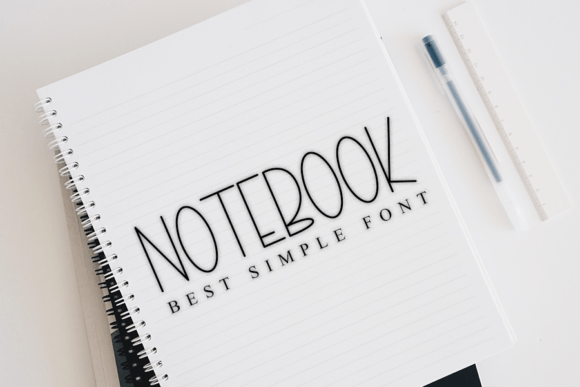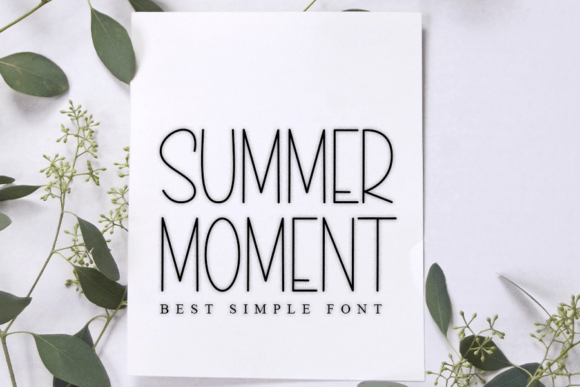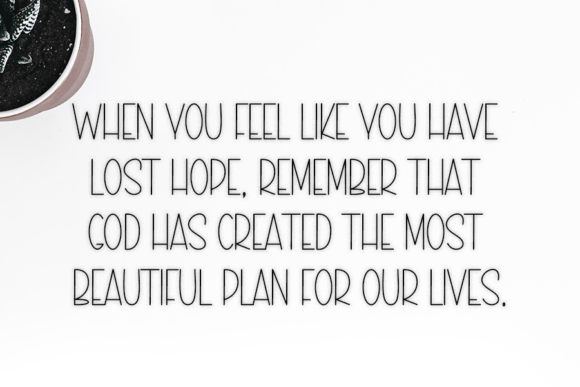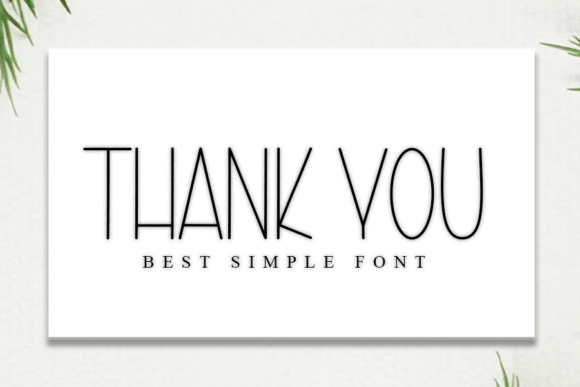
Introducing Beach Moment Font: The Ultimate Modern Sans-Serif Font for Designers and Crafters
Are you tired of using the same old fonts for your digital designs, presentations, and craft projects? Look no further! Beach Moment Font is here to revolutionize your typography game with its cool and modern sans-serif style. This versatile font is perfect for a wide range of applications, from crafting and digital design to presentations and greeting cards. In this article, we’ll dive into the features and benefits of Beach Moment Font, and explore why it’s about to become your new favorite go-to font.
What is Beach Moment Font?
Beach Moment Font is a sleek and contemporary sans-serif font that’s designed to make a statement. Its clean lines, simple shapes, and highly legible characters make it perfect for use in a variety of contexts. Whether you’re creating a digital design, crafting a handmade project, or putting together a presentation, Beach Moment Font is sure to impress.
Key Features of Beach Moment Font
- Modern sans-serif design: Beach Moment Font boasts a fresh and modern sans-serif design that’s perfect for creating a lasting impression.
- Highly legible: The font’s clean lines and simple shapes ensure that your text is easy to read, even at small sizes.
- Versatile: Beach Moment Font is suitable for a wide range of applications, from digital design and presentations to crafting and greeting cards.
Why Designers and Crafters Love Beach Moment Font
Beach Moment Font has quickly become a favorite among designers and crafters due to its unique combination of style and versatility. Here are just a few reasons why:
- Perfect for digital design: Beach Moment Font is ideal for use in digital designs, such as social media graphics, blog posts, and website headers.
- Great for crafting: This font is perfect for crafters who want to add a personal touch to their handmade projects, such as scrapbooking, card making, and DIY signs.
- Suitable for presentations: Beach Moment Font is a great choice for presentations, as it’s easy to read and can be used in a variety of formats, from PowerPoint to Google Slides.
- Ideal for greeting cards: This font is perfect for creating beautiful and personalized greeting cards for special occasions.
Tips for Using Beach Moment Font
To get the most out of Beach Moment Font, here are a few tips to keep in mind:
- Experiment with different sizes: Beach Moment Font looks great at a variety of sizes, from small and delicate to large and bold.
- Pair with other fonts: Try pairing Beach Moment Font with other fonts to create a unique and eye-catching design.
- Use it for headings and titles: Beach Moment Font is perfect for use in headings and titles, as it’s highly legible and attention-grabbing.
In conclusion, Beach Moment Font is a cool and modern sans-serif font that’s perfect for designers and crafters who want to add a touch of style to their projects. With its highly legible characters, versatile design, and ease of use, this font is sure to become your new go-to font for a wide range of applications. So why wait? Download Beach Moment Font today and start creating stunning designs that will leave a lasting impression!